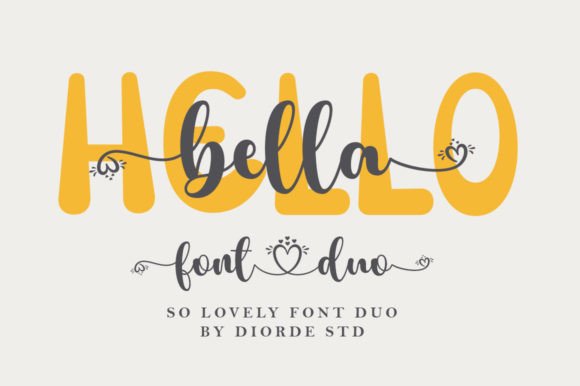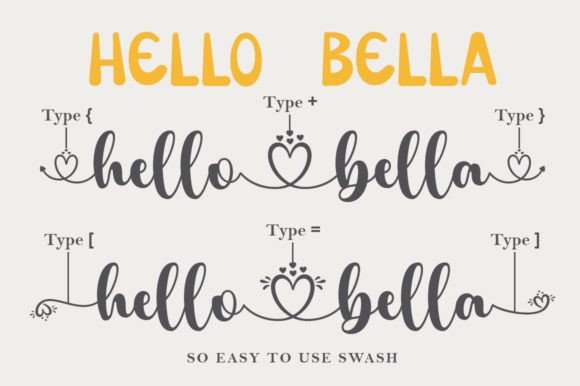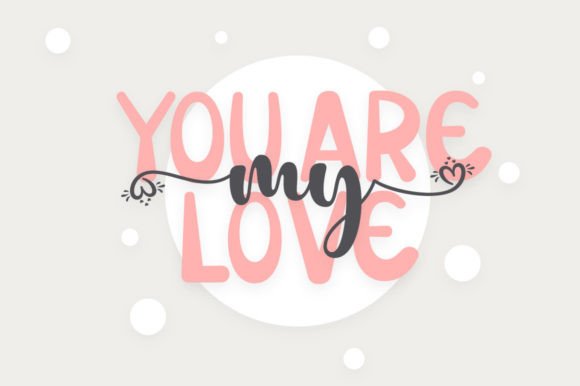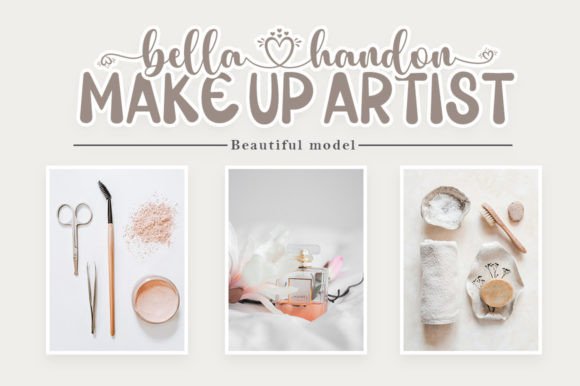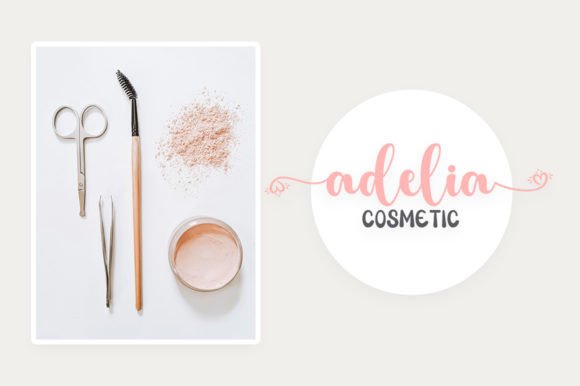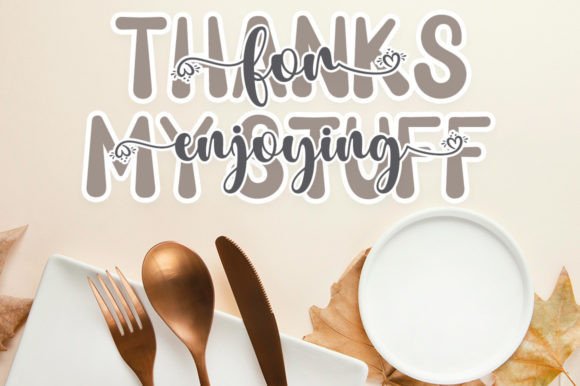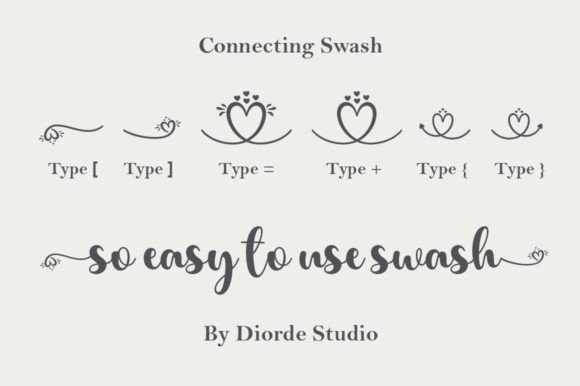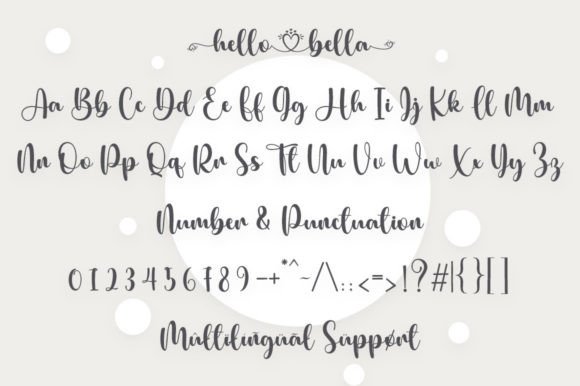
Hello Bella Duo Font
Hello Bella Duo is a stylish and delicate duo font (script and sans serif) suitable for a wide spectrum of applications. From greeting cards to headlines, this font will guarantee a romantic touch to each of your creations! Hello Bella Duo is PUA encoded which means you can access all of the glyphs and swashes with ease.